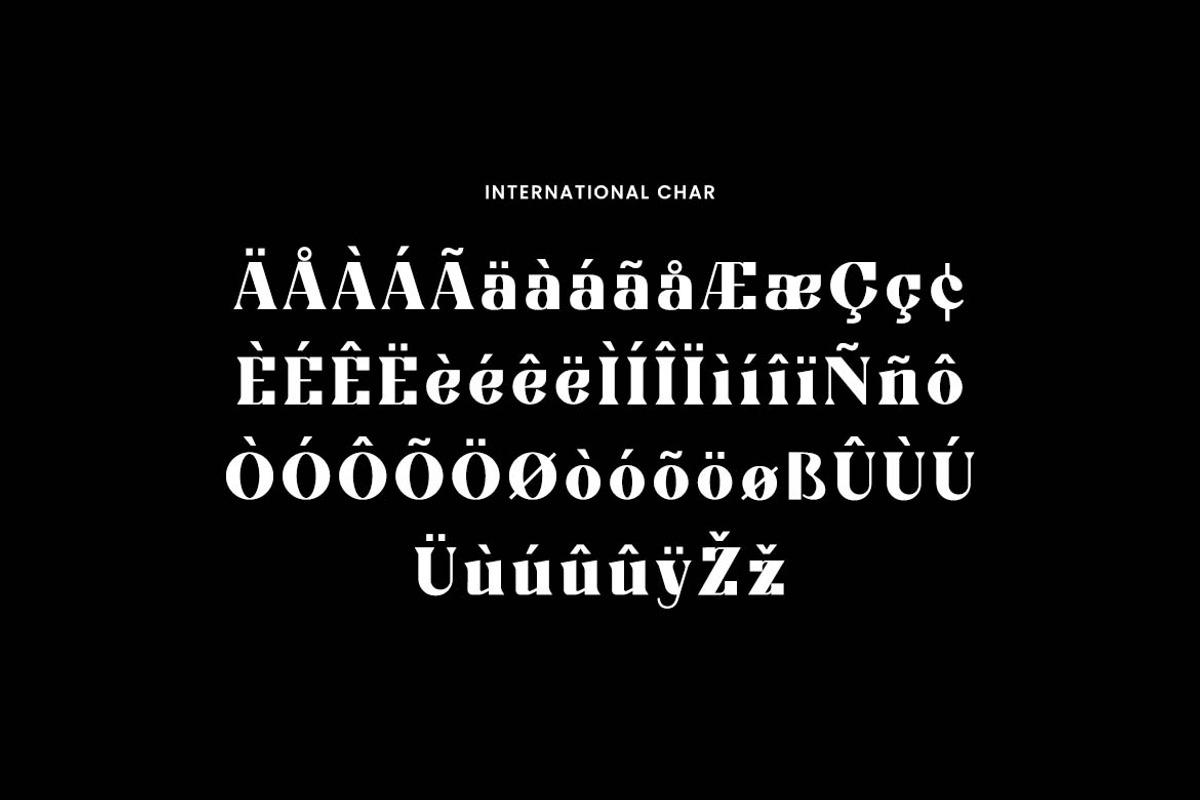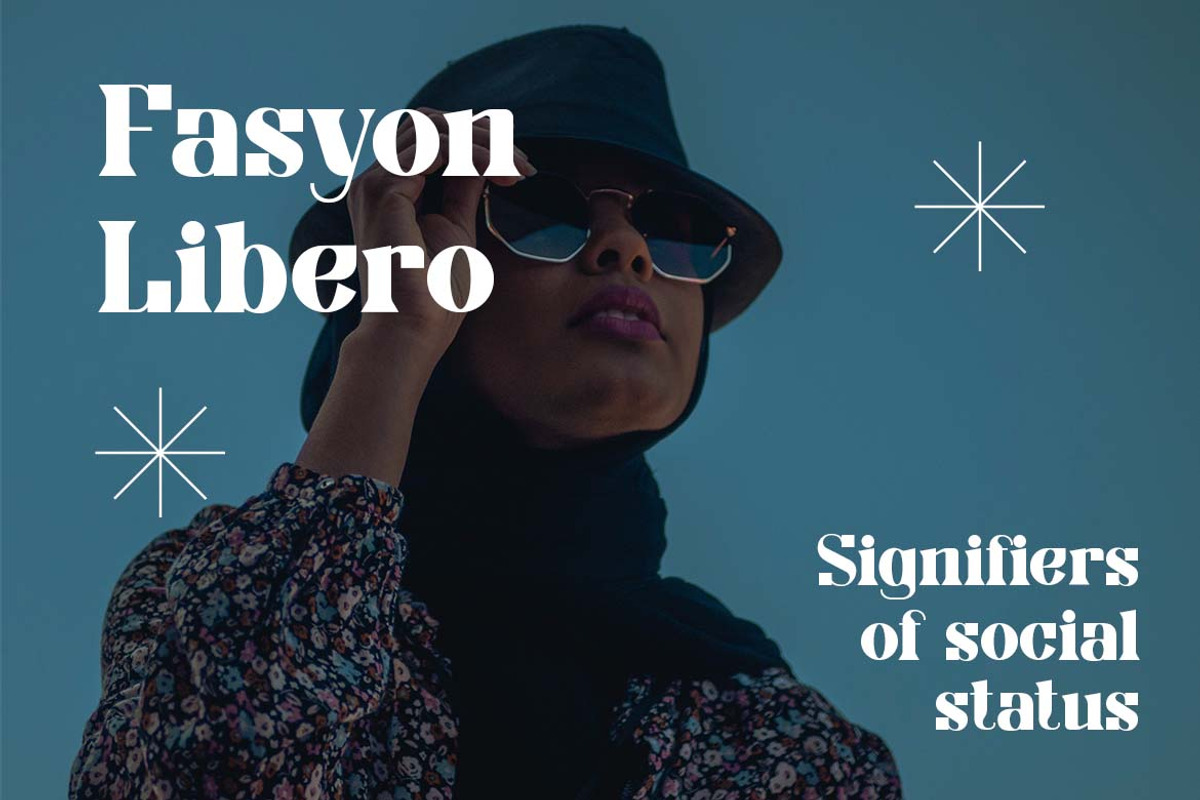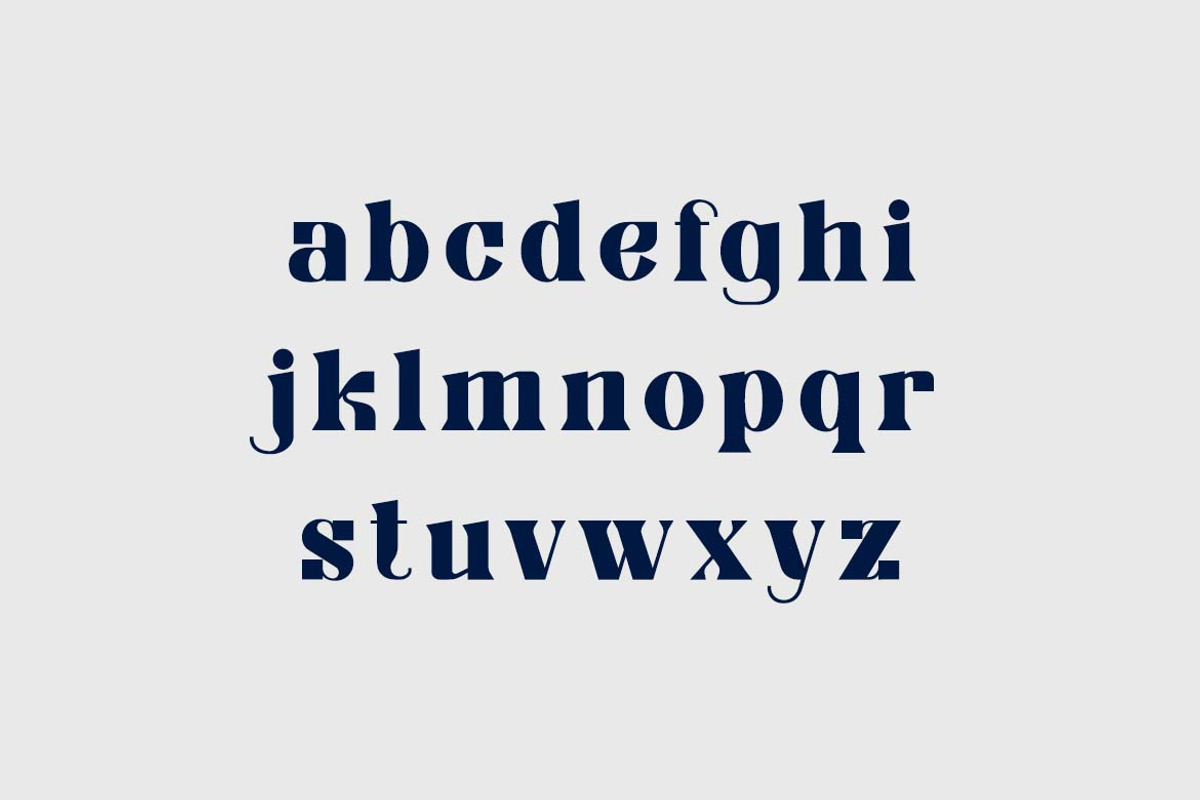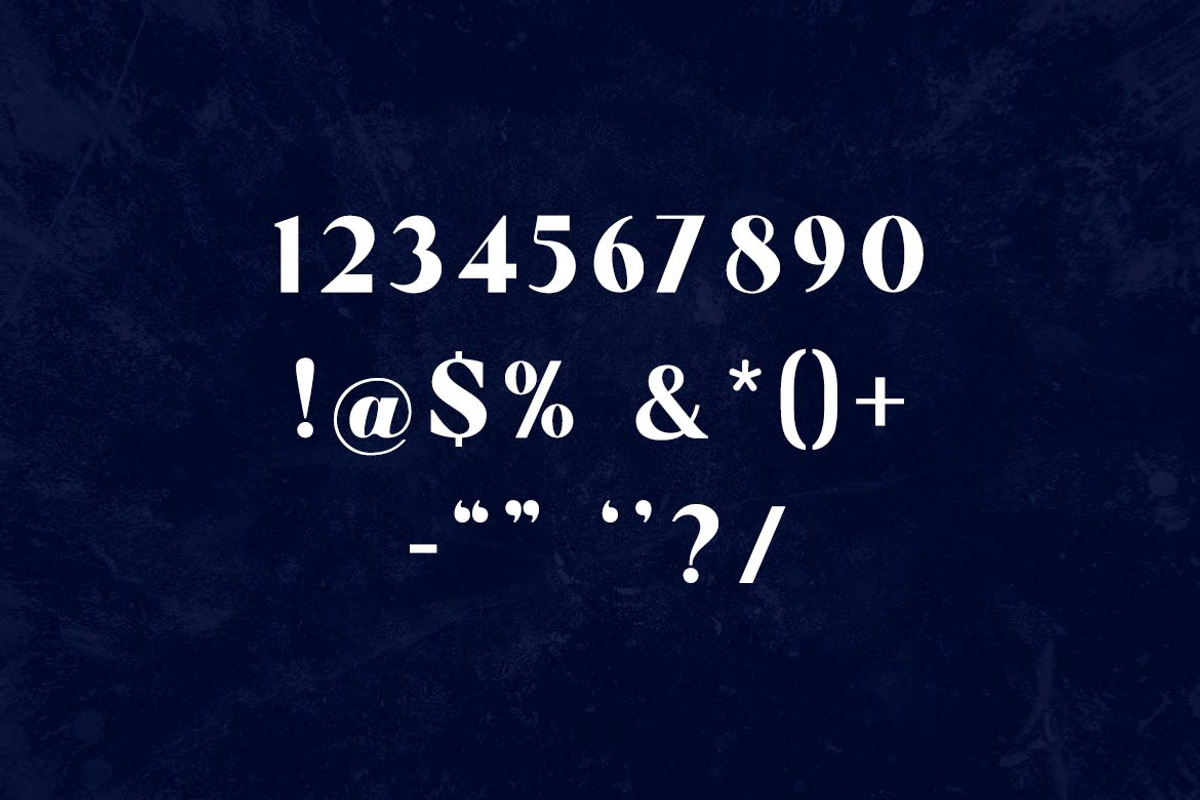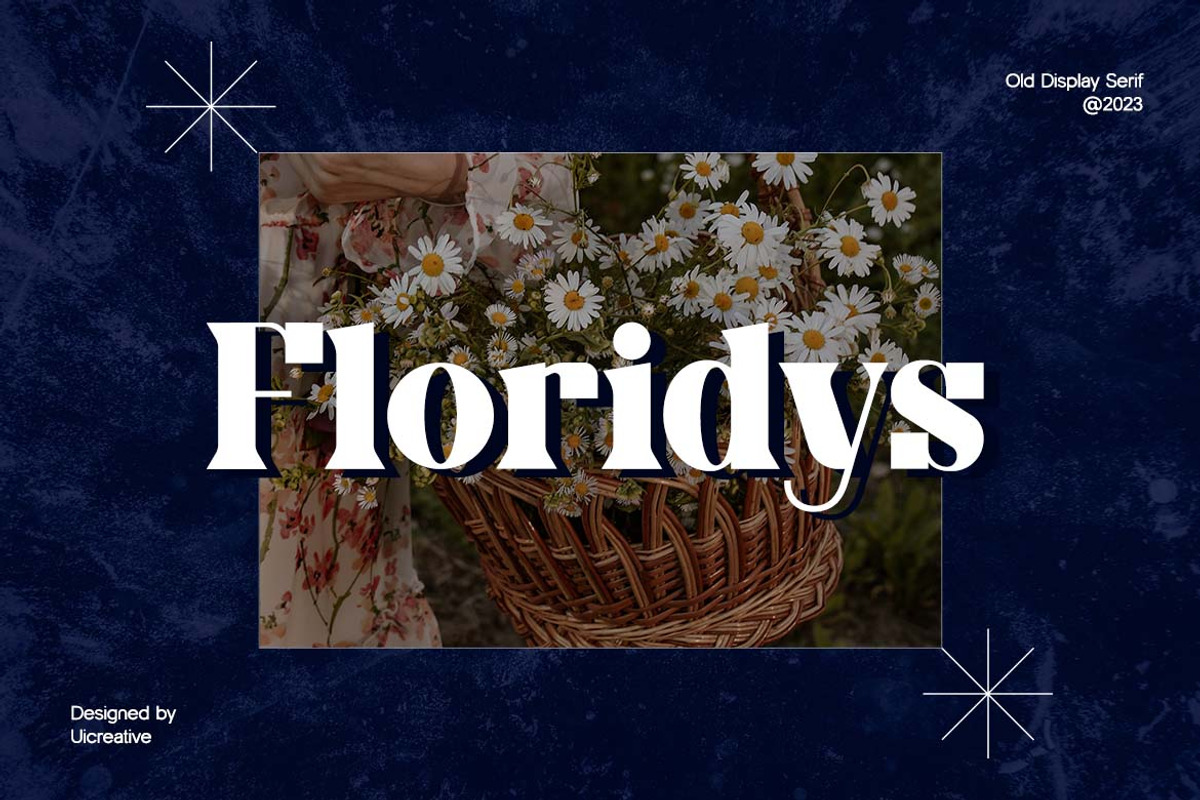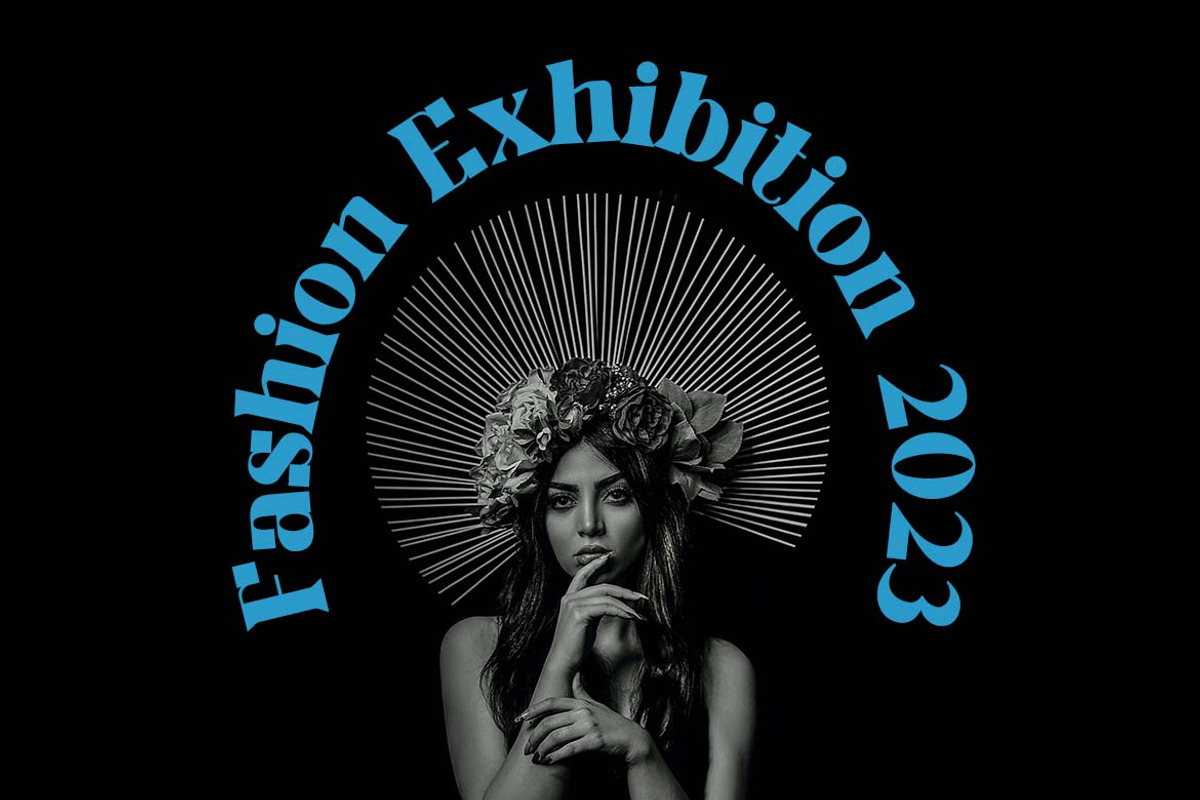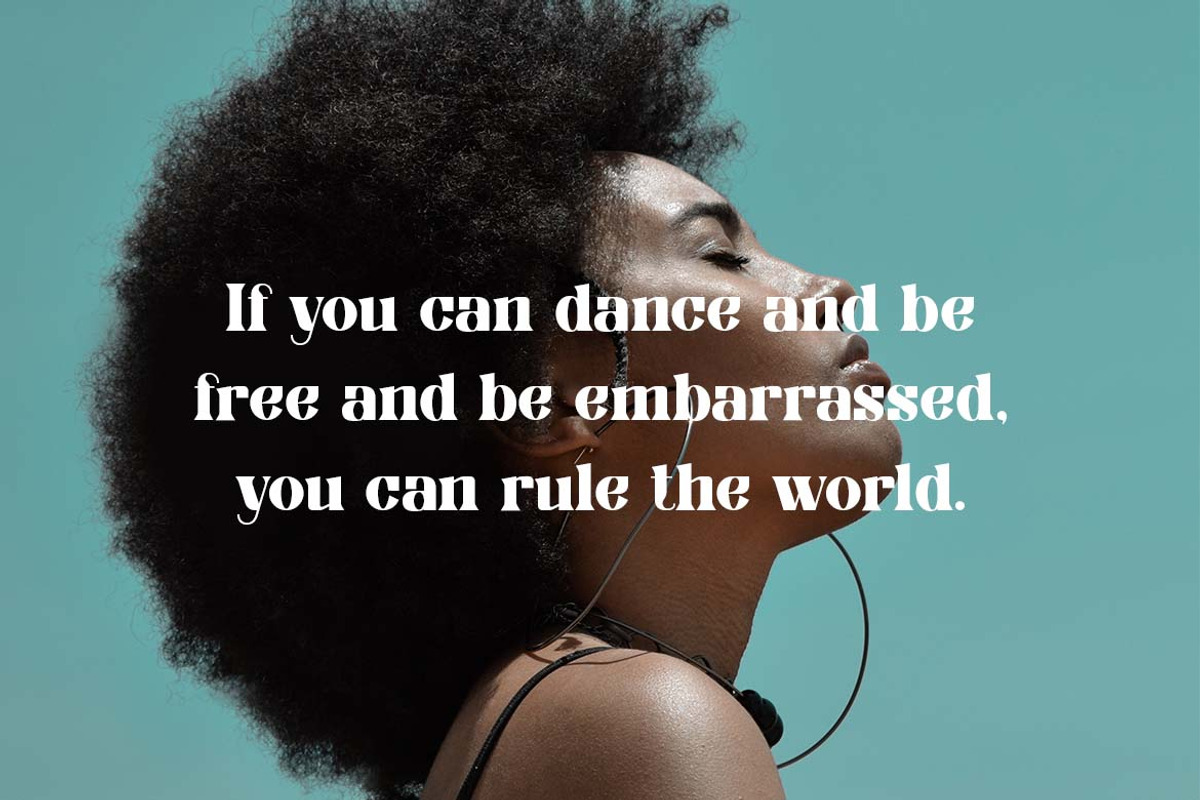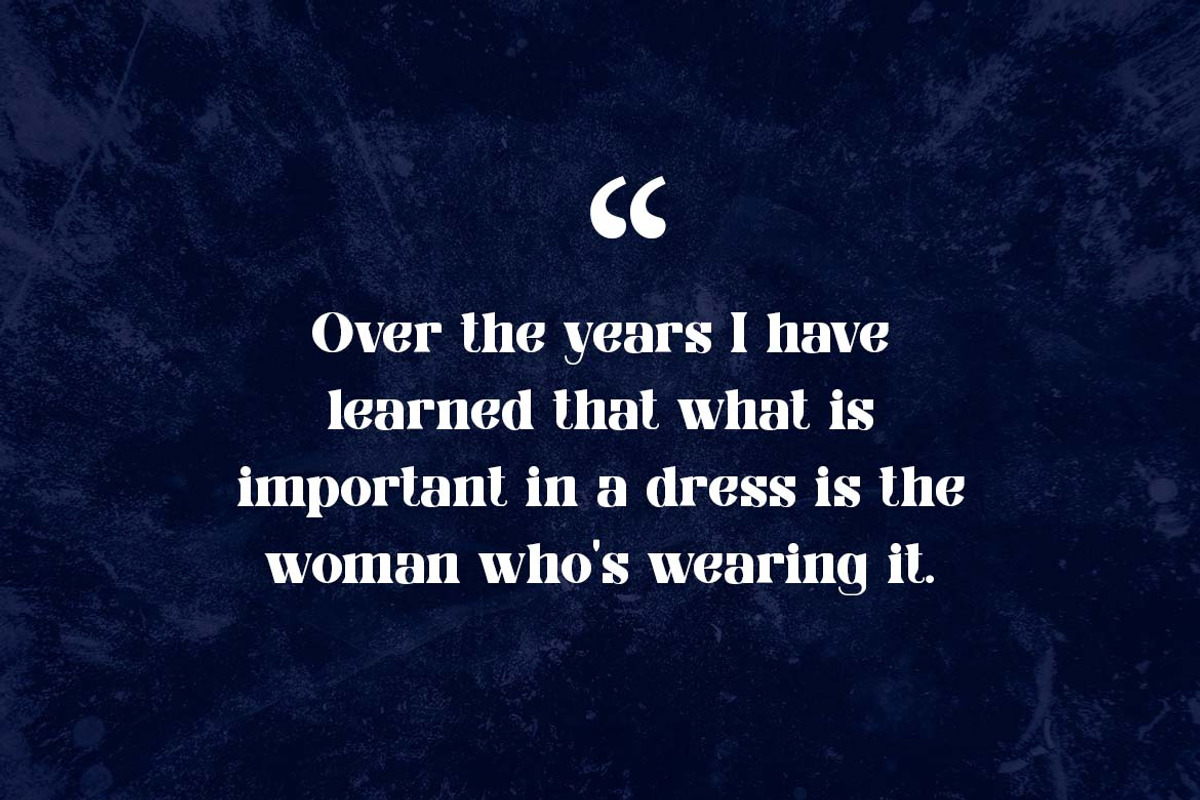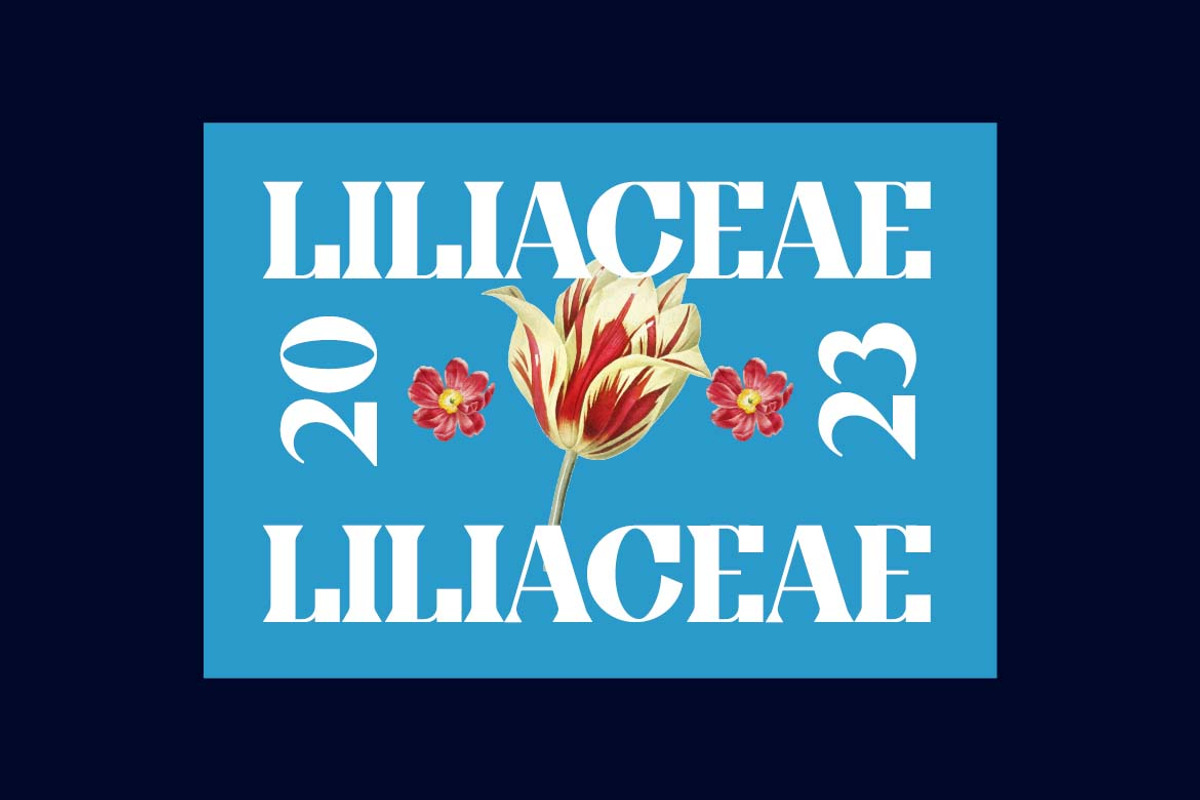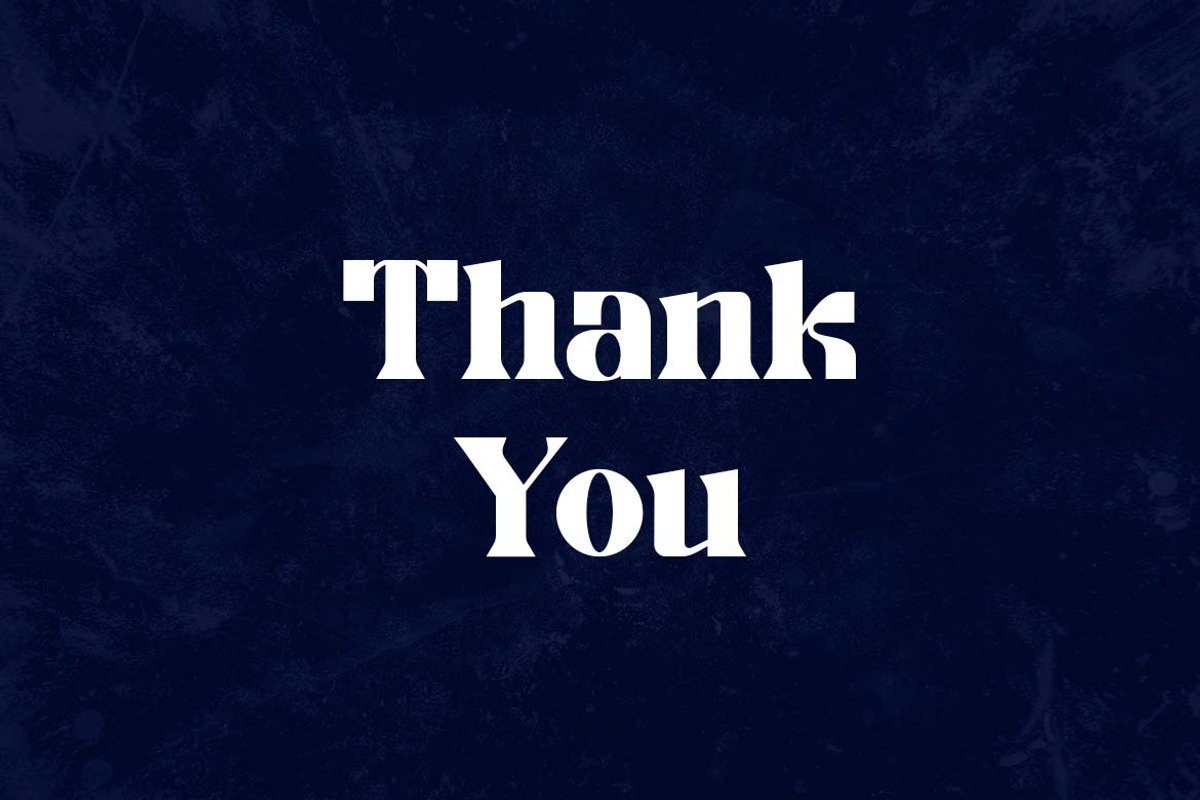
Obligately Old Display Serif Font
Introducing our new product the name is Obligately Old Display Serif Font. Modern Serif font that feels beautiful classy, elegant, and modern. This font is ideally suited for a wide variety of projects, such as signature, stationery, logo, wedding, typography quotes, magazine or book covers, website headers, clothing, branding, packaging design, and more. Also, fashion-related branding or editorial design displays both masculine and feminine qualities.